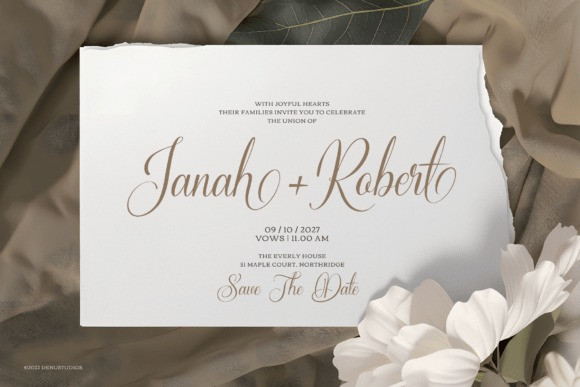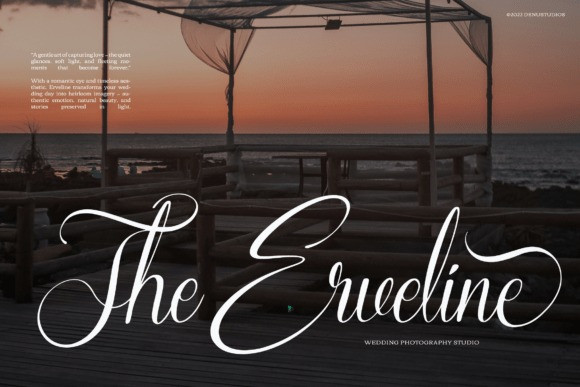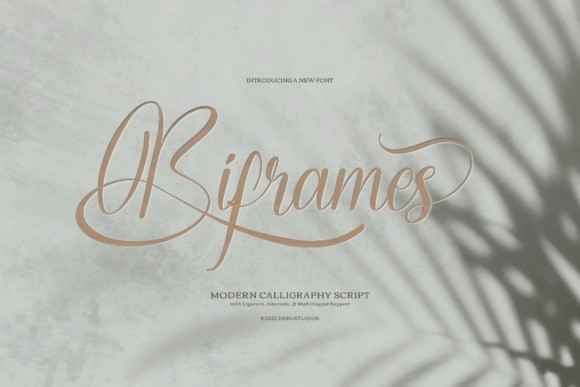
Biframes Script Font
Biframes Script Font a Modern Calligraphy Script typeface that exudes grace and sophistication.This elegant font is characterized by its fine, high-contrast strokes and exaggerated, beautiful ligatures and alternates, giving the impression of true expert penmanship.
The Biframes font includes robust multilingual support and advanced OpenType features, making it ideal for wedding stationery, high-end branding, sophisticated logos, book covers, and luxury editorial layouts. This stunning Biframes typeface brings a timeless, romantic quality to any text.With PUA encoding included, all special characters and decorative elements are easily accessible without additional software.